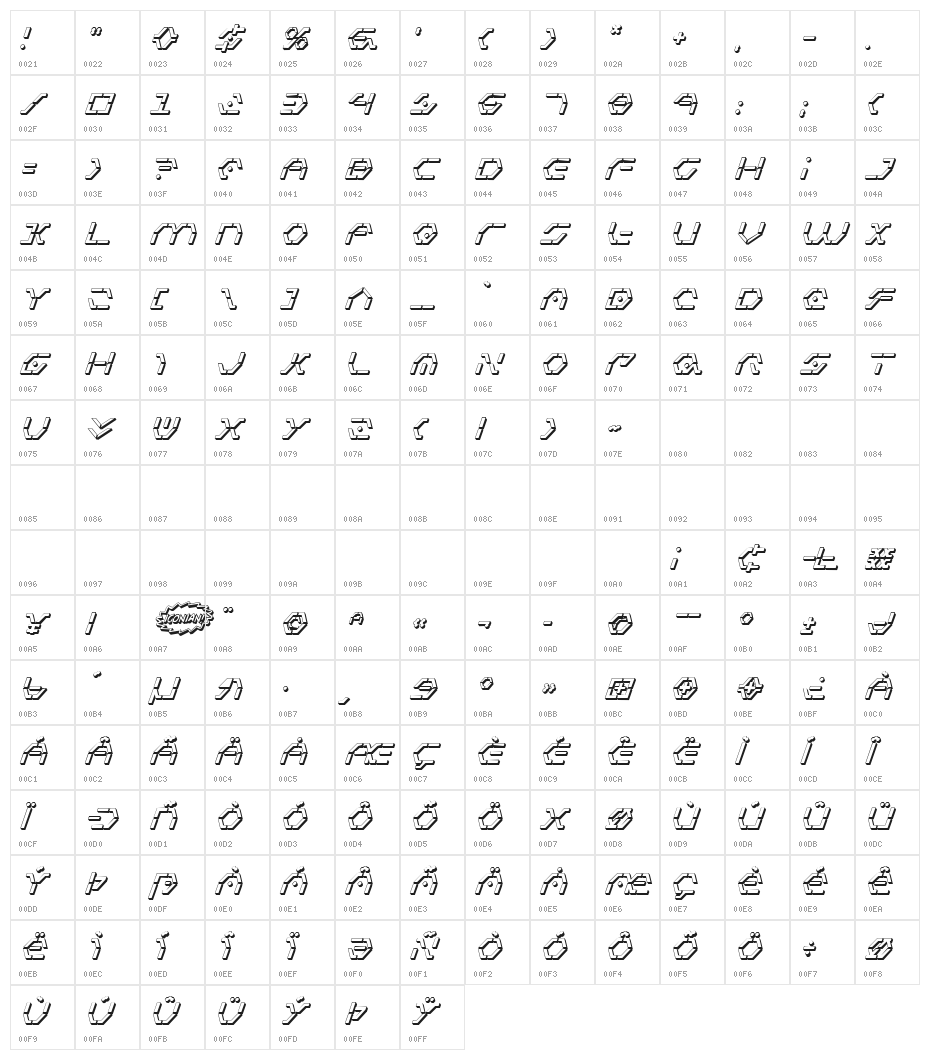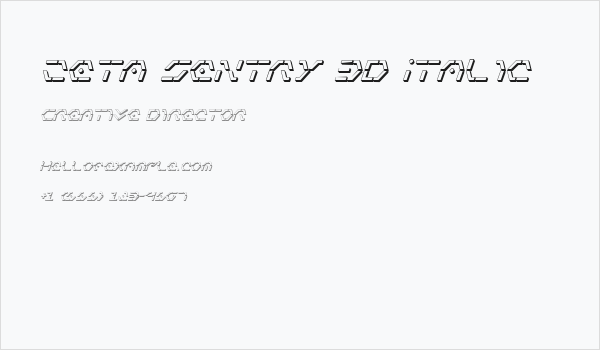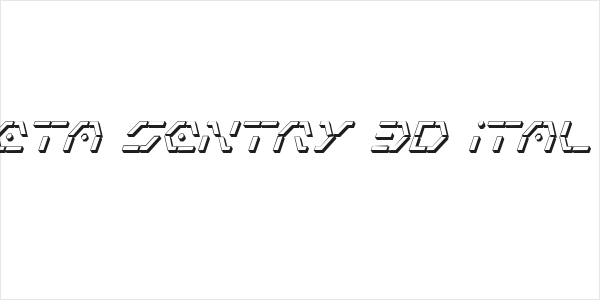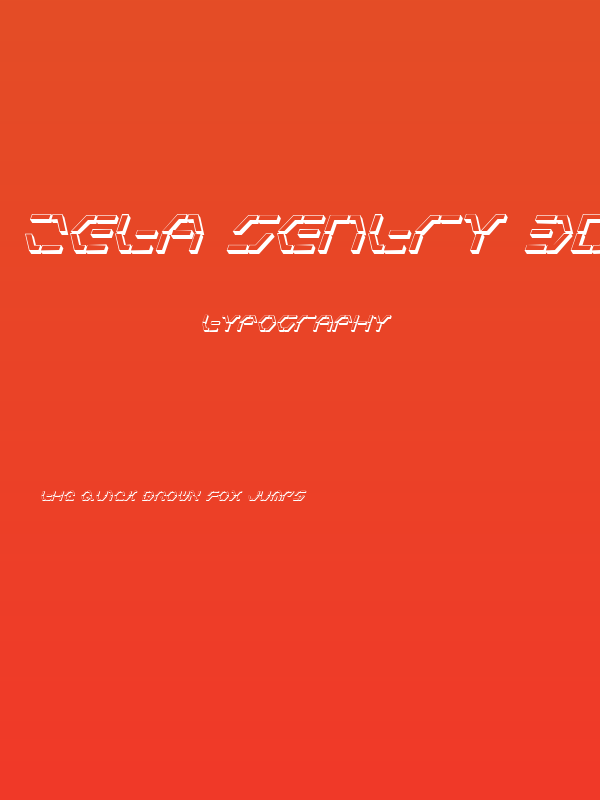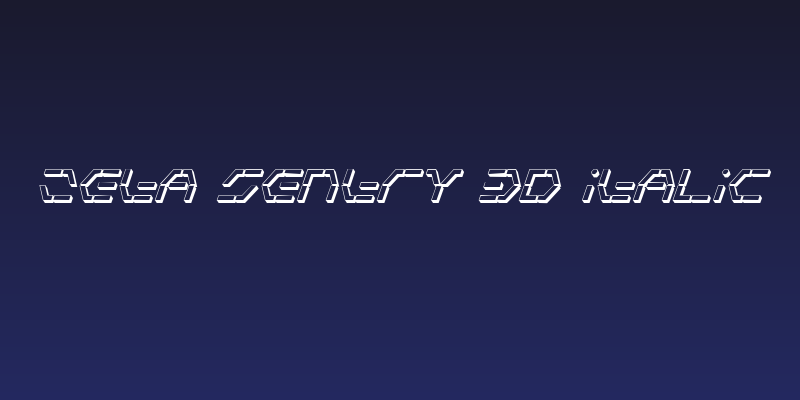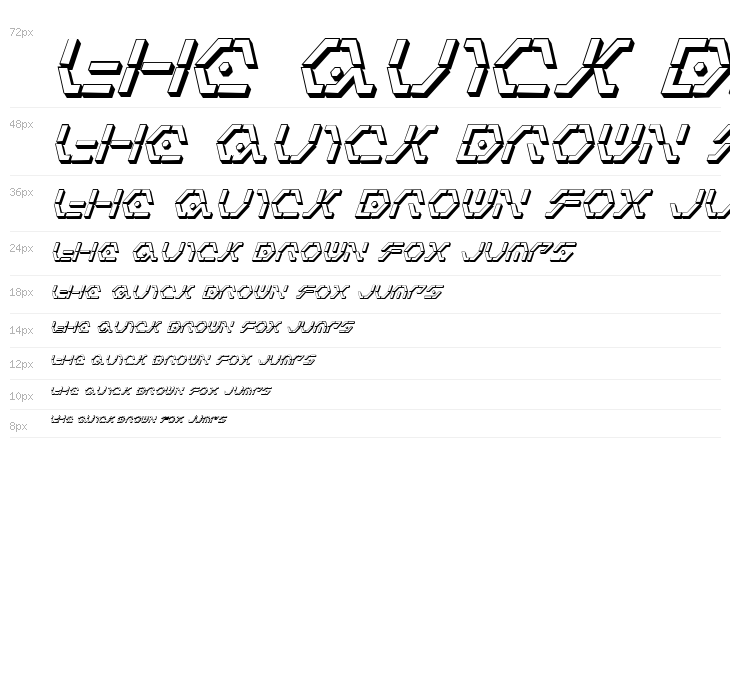
Zeta Sentry 3D Italic Font
Zeta Sentry 3D Italic Description
This font features a futuristic and geometric design with a three-dimensional effect. The characters are constructed with bold, angular lines that create a sense of depth and movement. The italic style adds a dynamic slant to the letters, enhancing the modern and edgy appearance. Each character is outlined, giving it a distinct and eye-catching look. The font is well-suited for projects that require a strong visual impact and a contemporary aesthetic.
| Proposed Projects | Ideal for sci-fi themed designs, video game titles, tech branding, and futuristic posters. |